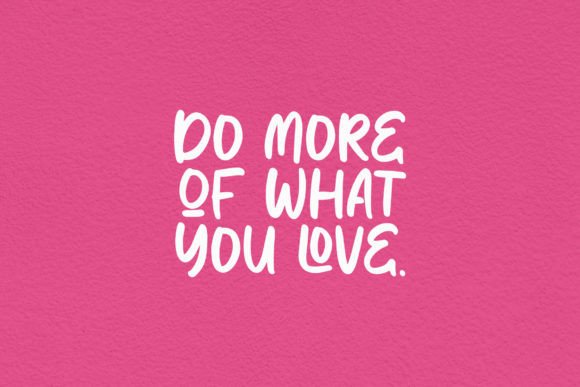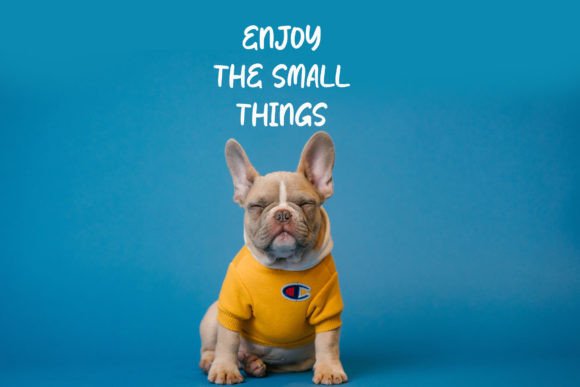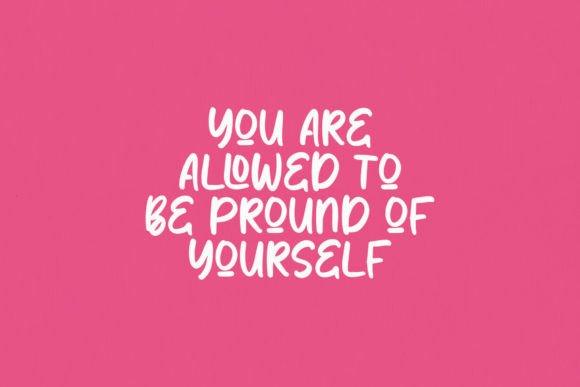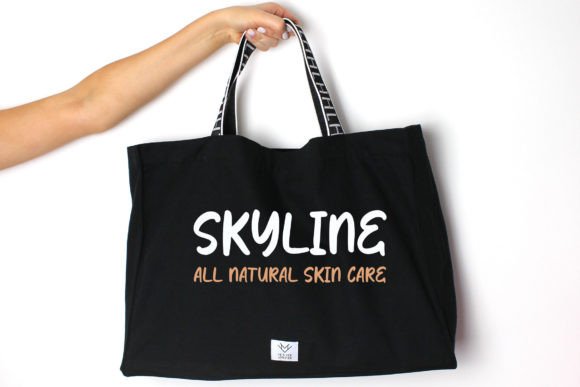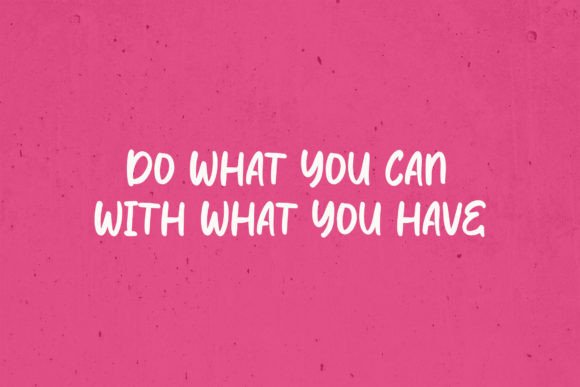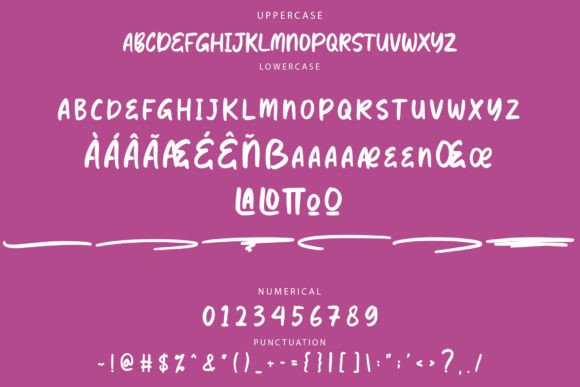
Introducing BLOMTAO: The Playful and Cute Brush Font for Creative Projects
Are you looking for a font that can add a touch of playfulness and whimsy to your designs? Look no further than BLOMTAO, a delightful brush font that is sure to bring a smile to your face. With its unique character shapes and charming appearance, BLOMTAO is the perfect choice for designers and crafters who want to add a little joy to their creative projects.
The Characteristics of BLOMTAO
BLOMTAO is a brush font that boasts a cute and whimsical style, making it ideal for playful projects, children’s products, packaging, and branding. Its unique character shapes are carefully crafted to bring a fun and lighthearted touch to any design. Whether you’re working on a project for kids or adults, BLOMTAO’s charming and quirky appearance is sure to delight.
Perfect for Playful Projects
BLOMTAO is specifically designed for designers and crafters who want to create playful and engaging projects. Its fun and lively appearance makes it perfect for:
- Children’s products: BLOMTAO is a great choice for designing children’s books, toys, and games.
- Playful packaging: Add a touch of whimsy to your product packaging with BLOMTAO’s unique character shapes.
- Branding: Use BLOMTAO to create a fun and playful brand identity that will appeal to kids and adults alike.
- Party decorations: BLOMTAO is perfect for designing party decorations, invitations, and other celebratory materials.
What Makes BLOMTAO Special?
So, what sets BLOMTAO apart from other fonts? Here are a few things that make it special:
- Unique character shapes: BLOMTAO’s character shapes are carefully crafted to bring a fun and playful touch to your designs.
- Hand-drawn appearance: BLOMTAO has a hand-drawn appearance that gives it a charming and quirky feel.
- Easy to read: Despite its playful appearance, BLOMTAO is easy to read and understand.
- Versatile: BLOMTAO can be used for a wide range of projects, from children’s products to adult-oriented designs.
How to Use BLOMTAO in Your Designs
Using BLOMTAO in your designs is easy. Here are a few tips to get you started:
- Pair it with other fonts: BLOMTAO looks great when paired with other fonts, such as sans-serif fonts or script fonts.
- Experiment with colors: BLOMTAO looks great in a variety of colors, from bright and bold to pastel and soft.
- Use it for headings and titles: BLOMTAO is perfect for headings and titles, where its playful appearance can really shine.
- Don’t be afraid to get creative: BLOMTAO is a versatile font that can be used in a wide range of creative projects.
In conclusion, BLOMTAO is a playful and cute brush font that is perfect for designers and crafters who want to add a touch of whimsy to their creative projects. With its unique character shapes, charming appearance, and versatile nature, BLOMTAO is sure to delight kids and adults alike. So why not give it a try and see how it can enhance your designs?
Here are a few tips for designers and crafters who want to get the most out of BLOMTAO:
- Experiment with different colors and textures to really make your designs pop.
- Use BLOMTAO in combination with other fonts to create a unique and interesting visual effect.
- Don’t be afraid to get creative and try new things – BLOMTAO is a versatile font that can be used in a wide range of projects.